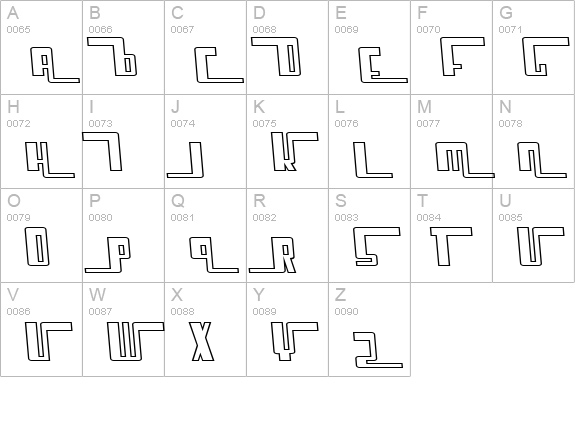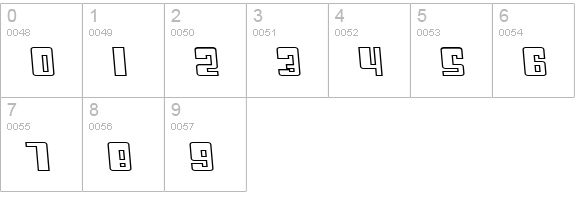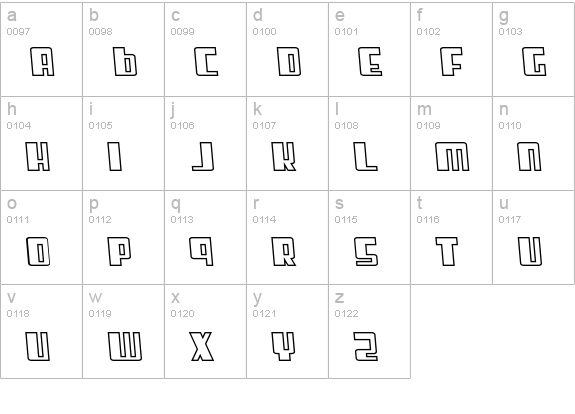
SF Cosmic Age Outine Font Details
Introducing SF Cosmic Age Outline Font, a mesmerizing and futuristic typeface that will transport you to another dimension. This font is the perfect choice for all your science fiction and cosmic themed projects, with its sleek and modern outline design. SF Cosmic Age Outline Font captures the essence of the cosmic age, evoking a sense of exploration, discovery, and limitless possibilities. Its clean lines and precise angles give this font a contemporary edge, making it ideal for both digital and print designs. What sets SF Cosmic Age Outline Font apart is not only its stunning aesthetics but also its accessibility. In an era where creativity knows no bounds, this font is freely available to download at FontsMarket.com. Yes, you read that right - you can experience the power and beauty of SF Cosmic Age Outline Font without any cost. Whether you're designing a captivating book cover, crafting an attention-grabbing poster, or creating a cosmic-themed website, SF Cosmic Age Outline Font is here to elevate your creations to new heights. Its versatility allows it to seamlessly fit into various design projects, ensuring that your vision is brought to life with elegance and style. With SF Cosmic Age Outline Font, you have the power to unleash your imagination and take your audience on a cosmic journey. So why wait? Explore the vast universe of design possibilities with SF Cosmic Age Outline Font, freely available to download at FontsMarket.com.